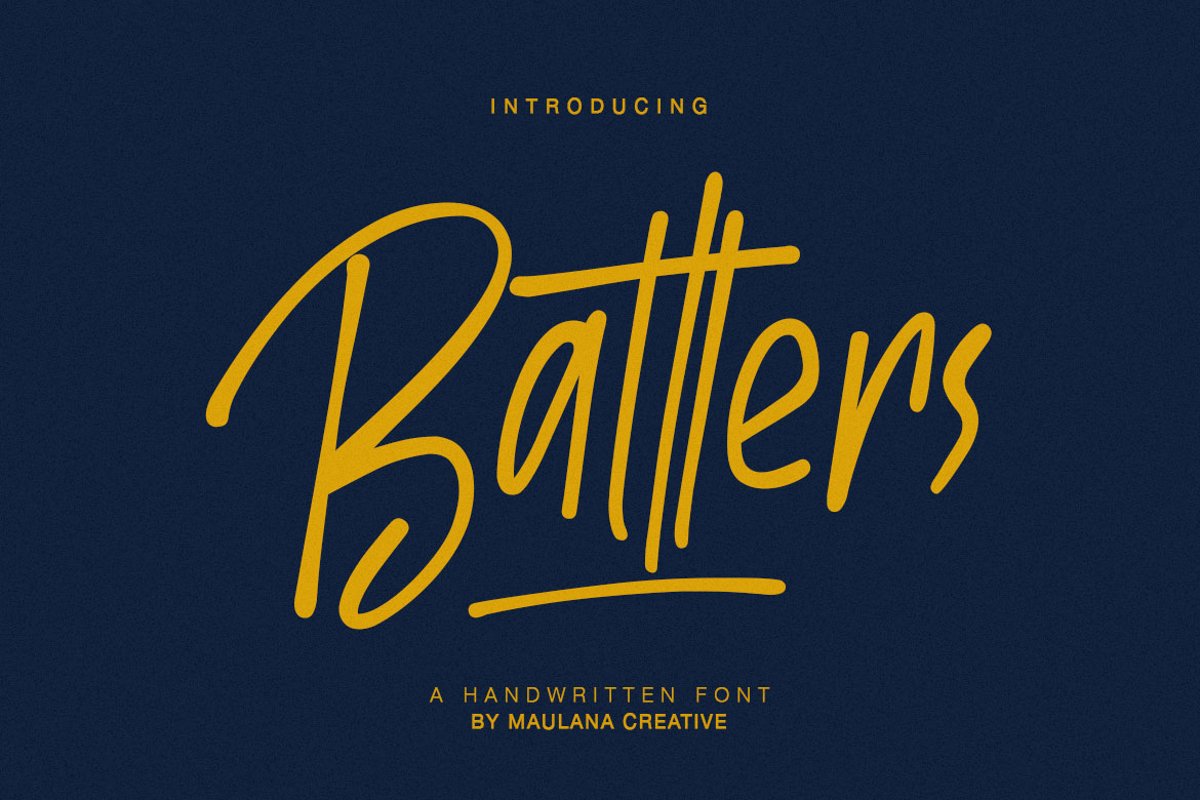
Give your designs an authentic handcrafted feel. **“Batllers”** is perfectly suited to signature, stationery, logo, typography quotes, magazine or book cover, website header, clothing, branding, packaging design and more.